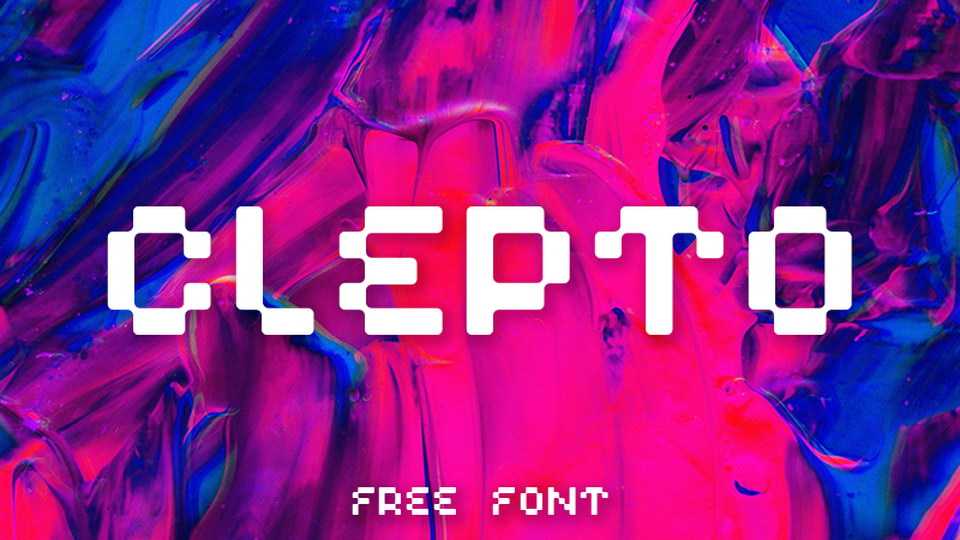
Download Clepto font, a sci-fi tech-style pixel display font. It contains all caps letters and numbers. Clepto font fits great for digital designs, techlology and crypto related projects and more.